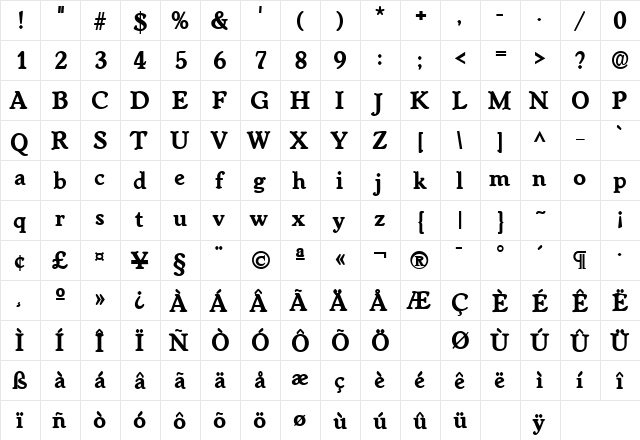
WorcesterLH Bold
Design Context for WorcesterLH Typeface
WorcesterLH takes a measured approach to typography — its balanced proportions and neutral character make it a reliable workhorse for both digital and print work. Its bold stroke weight gives it real presence on the page.